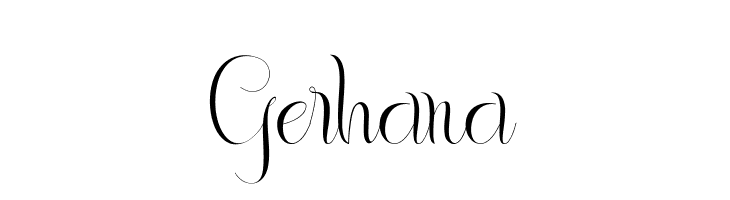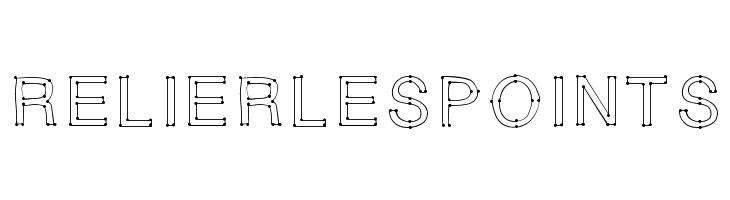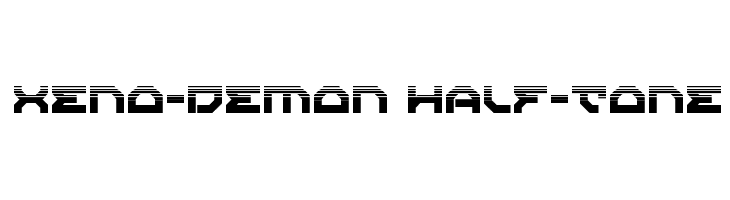
A playful, connect-the-dots style font with uniform stroke width and rounded edges.
A futuristic font with a gradient line pattern, perfect for tech and digital designs.
A playful, cursive script font with bold strokes and artistic flair.
A bold, playful handwritten font with rounded, irregular letterforms.
A bold, semi-italic font with a geometric and dynamic style.
A lively, handwritten font with fluid, continuous strokes.
An elegant, cursive script with ornate flourishes and smooth curves.
A bold, extra condensed serif font with high contrast and tight spacing.